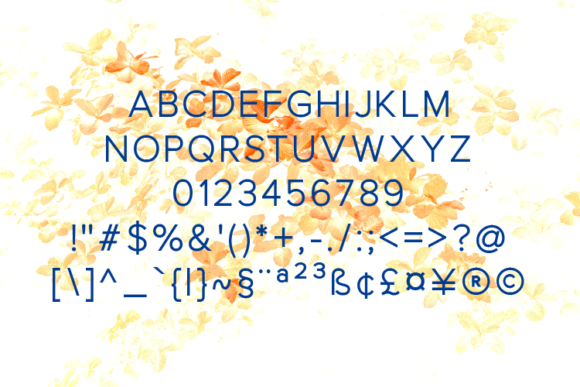
Gerkco Medium Font: Elevate Your Designs with a Touch of Modern Elegance
In the world of typography, fonts play a crucial role in conveying the message and aesthetic of a design. For designers and crafters looking to add a modern touch to their projects, Gerkco Medium font is an excellent choice. This clean and elegant sans serif font is perfect for creating a wide range of designs, from logos and social media posts to book covers and more.
The Modern Feel of Gerkco Medium
Gerkco Medium boasts a modern feel that is both stylish and sophisticated. Its clean lines and elegant curves make it an ideal font for designers who want to create a balanced and contemporary look. The font’s sans serif design ensures that it remains versatile and easy to read, making it perfect for use in various design projects.
One of the best things about Gerkco Medium is its versatility. This font can be used to create a wide range of designs, including:
- Logos: Gerkco Medium’s modern feel makes it perfect for creating professional and stylish logos that will help your brand stand out.
- Social Media Posts: Use Gerkco Medium to create eye-catching social media posts that will grab the attention of your audience.
- Book Covers: This font is ideal for creating unique and captivating book covers that will make your book stand out on the shelves.
- Business Cards: Gerkco Medium can also be used to create professional and modern business cards that will make a great impression.
Why Choose Gerkco Medium?
So, why should you choose Gerkco Medium for your design projects? Here are just a few reasons:
- Modern and Elegant: Gerkco Medium has a modern and elegant look that will elevate your designs and give them a professional touch.
- Clean and Readable: The font’s clean lines and sans serif design make it easy to read, even at small sizes.
- Versatile: Gerkco Medium can be used in a wide range of design projects, from logos and social media posts to book covers and more.
Tips for Using Gerkco Medium
To get the most out of Gerkco Medium, here are a few tips:
- Pair it with Other Fonts: Gerkco Medium can be paired with other fonts to create a unique and interesting look.
- Experiment with Colors: Don’t be afraid to experiment with different colors to find the perfect combination for your design.
- Use it Consistently: Use Gerkco Medium consistently throughout your design project to create a cohesive and professional look.
In conclusion, Gerkco Medium font is a versatile and modern sans serif font that is perfect for designers and crafters looking to add a touch of elegance to their projects. With its clean lines, elegant curves, and modern feel, Gerkco Medium is ideal for creating a wide range of designs, from logos and social media posts to book covers and more. So why not give Gerkco Medium a try and see how it can elevate your designs?
Whether you’re a professional designer or a crafter, Gerkco Medium is a great addition to your font library. Its versatility, readability, and modern feel make it a great choice for any design project. So go ahead, get creative, and see what amazing designs you can create with Gerkco Medium!